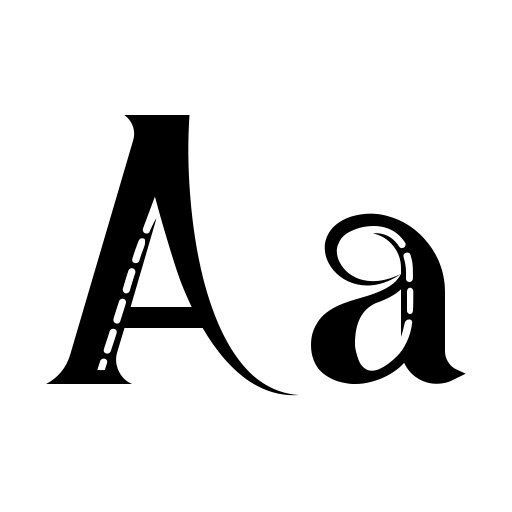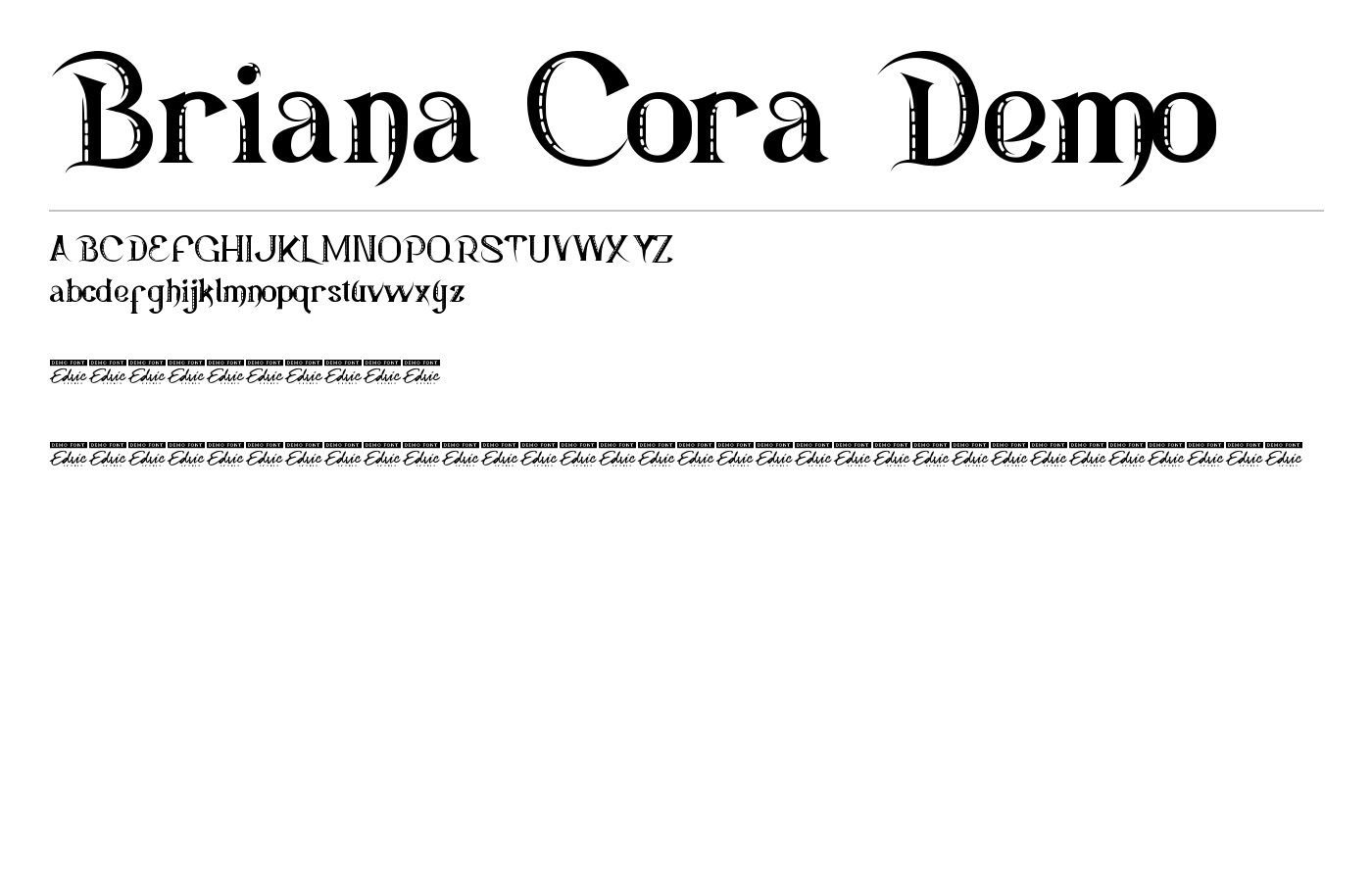
Briana Cora Demo is a decorative serif font with a unique blend of gothic and vintage influences, characterized by its sharp, contrasting strokes and stylized, calligraphic details. It features high contrast between thick and thin lines, bracketed serifs, and ornate letterforms with single-story characters and distinctive tails, making it ideal for eye-catching headlines and branding. This font works best in luxury, editorial, and artistic settings where a bold, elegant, and dramatic statement is desired.
Briana Cora Demo Font
About Briana Cora Demo Font